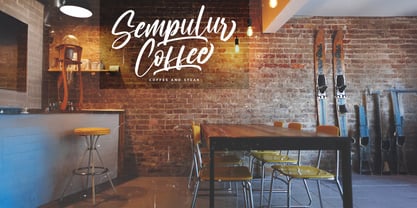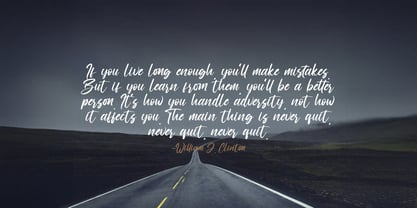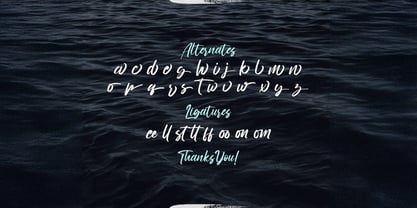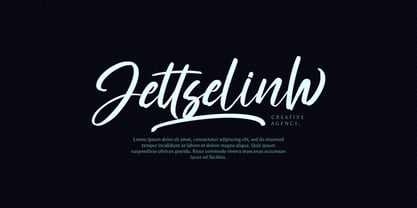
The Ronttsein Font Family was designed by Virgiawan Listanto and published by Stringlabs Creative Studio. Ronttsein contains 1 styles.
Ronttsein is a dynamic Brush Script Font that brings energy, personality, and handcrafted charm to your designs. Whether you're designing posters, apparel, logos, or social media graphics, Ronttsein delivers that punchy, street-smart aesthetic with a personal touch. Its authentic brush style adds an organic and artistic feel that stands out in both digital and print formats.